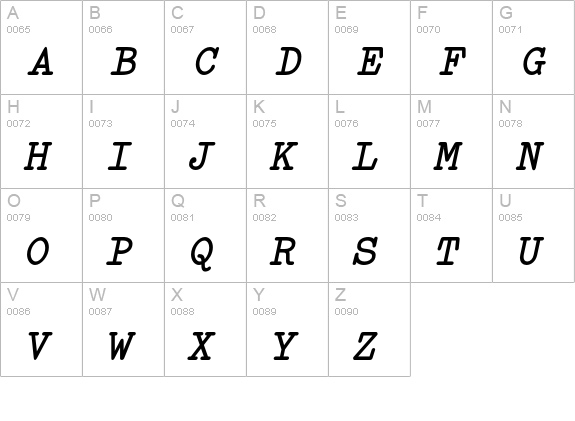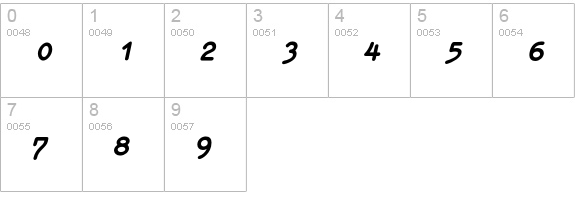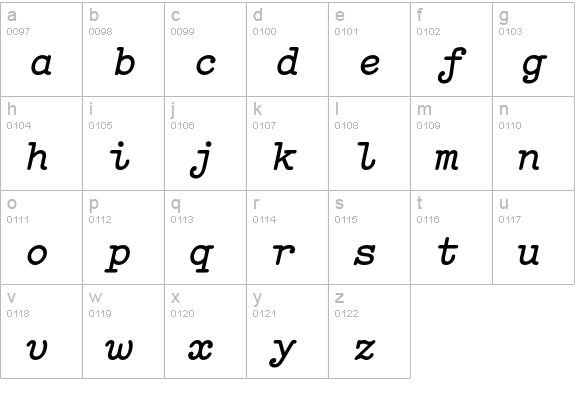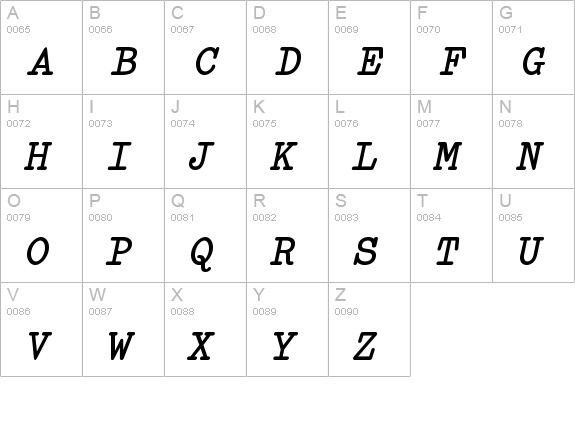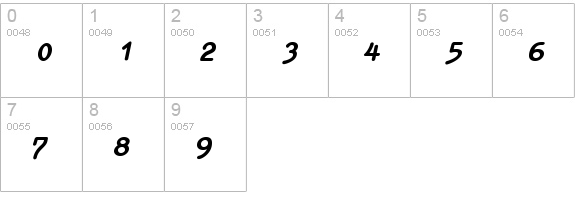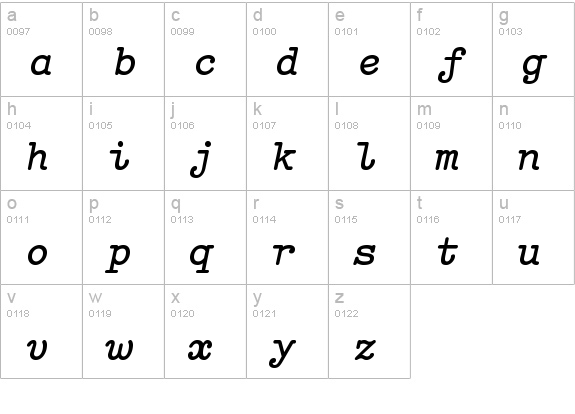
Elementa Symbol Bold Italic Font Details
Elementa Symbol Bold Italic is a strong, high-contrast, italic variant in the Elementa typeface family \xE2\x80\x94 well suited to headlines, attention-grabbing titles, and strong calls-to-action.
Elementa Symbol Bold Italic is a modern and stylish font that is perfect for adding a touch of sophistication to your designs. With its bold and italic style, this font is sure to make a statement. Whether you're creating a logo, poster, or any other design project, Elementa Symbol Bold Italic will add a touch of elegance and flair. Best of all, Elementa Symbol Bold Italic is available for free download at FontsMarket.com. This means you can easily access this beautiful font and use it in your projects without any cost. Don't miss out on this opportunity to elevate your designs with Elementa Symbol Bold Italic - download it for free today!